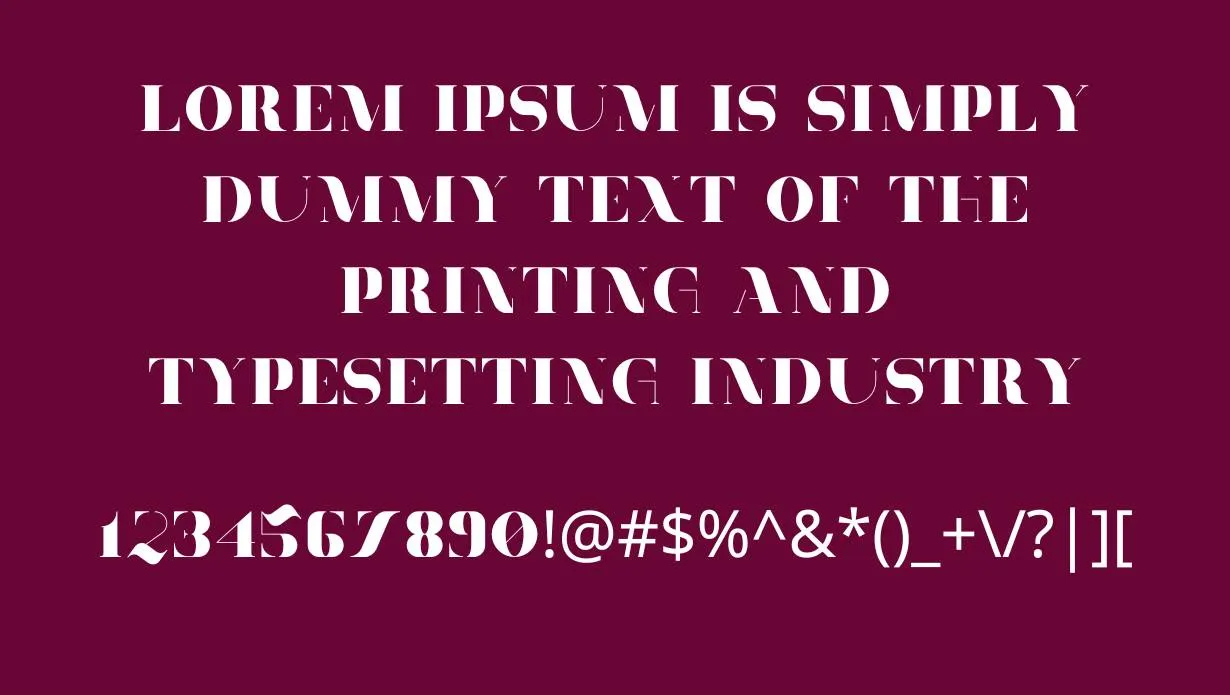
Tamira font is like a gentle breeze through your words, bringing a soft touch to your text. When you use it, your words become calm and inviting, like a peaceful day at the park. It’s great for creating a relaxed atmosphere in your messages or designs.
| Name | Tamira Font |
| Designer | VP Creative Shop |
Tamira’s letters flow smoothly, creating a comforting and friendly experience. It’s like the font version of a warm, cozy blanket.